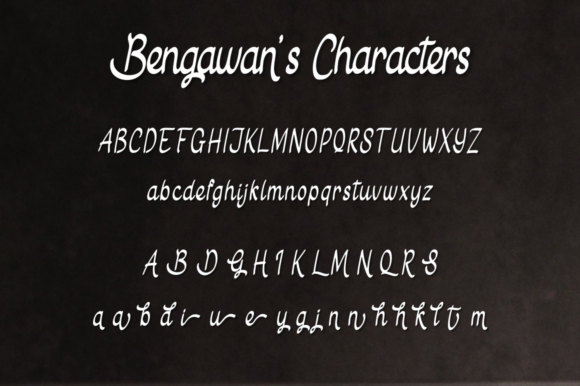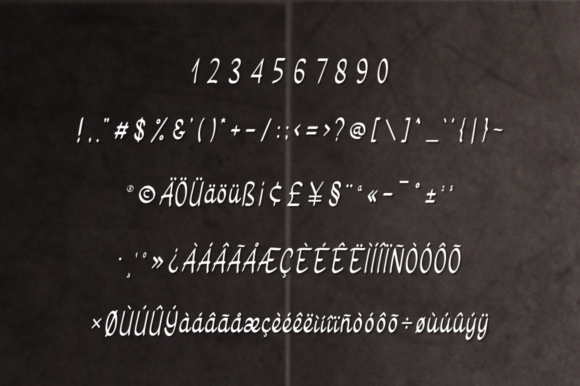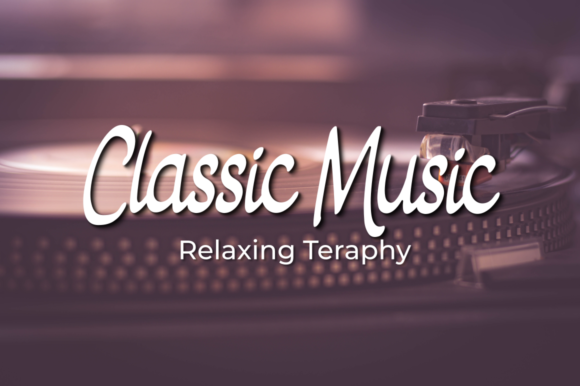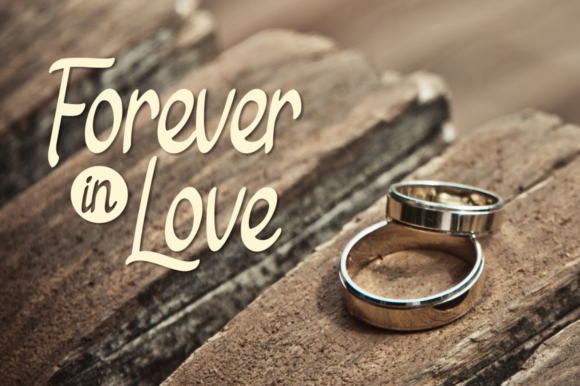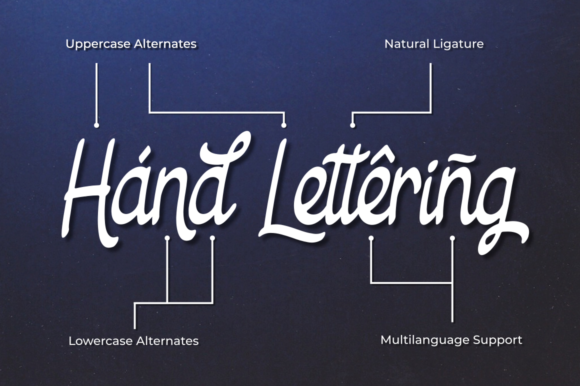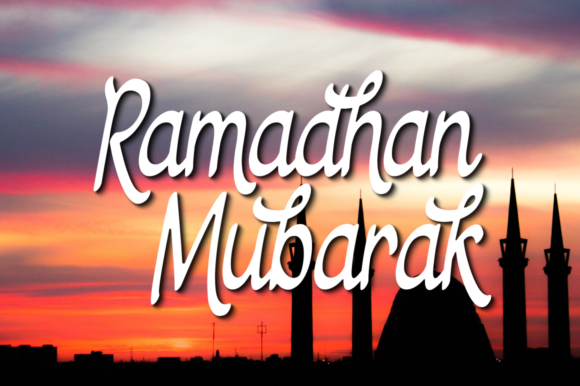
Bengawan Font: Adding a Touch of Authenticity to Your Creative Projects
Are you tired of using the same old fonts in your creative projects? Do you want to add a touch of uniqueness and authenticity to your designs? Look no further than Bengawan Font, a fun and bold handwritten font that’s sure to turn heads. In this article, we’ll take a closer look at Bengawan Font, its features, and how it can elevate your designs to the next level.
What is Bengawan Font?
Bengawan Font is a modern, handwritten font that’s designed to add a touch of personality to your creative projects. With its unique feel and bold style, it’s perfect for designers, crafters, and artists who want to make a statement. Whether you’re working on a logo, brochure, or social media graphics, Bengawan Font is sure to grab attention and leave a lasting impression.
Key Features of Bengawan Font
So, what makes Bengawan Font so special? Here are some of its key features:
- Unique feel: Bengawan Font has a distinct, hand-crafted feel that’s full of character and personality.
- Bold style: With its bold lines and vibrant style, Bengawan Font is perfect for making a statement.
- Authenticity: Bengawan Font is designed to evoke a sense of authenticity and originality, making it perfect for designers and crafters who want to stand out from the crowd.
- Versatility: Bengawan Font can be used in a variety of creative projects, from logos and branding to social media graphics and more.
How to Use Bengawan Font in Your Designs
So, how can you use Bengawan Font in your designs? Here are a few ideas to get you started:
- Logos and branding: Use Bengawan Font to create a unique and memorable logo that reflects your brand’s personality.
- Social media graphics: Add a touch of personality to your social media graphics with Bengawan Font.
- Brochures and flyers: Use Bengawan Font to create eye-catching brochures and flyers that grab attention.
- Invitations and cards: Add a touch of elegance and sophistication to your invitations and cards with Bengawan Font.
Benefits of Using Bengawan Font
So, why should you choose Bengawan Font for your creative projects? Here are just a few benefits:
- Stand out from the crowd: With Bengawan Font, you can create designs that stand out from the crowd and grab attention.
- Add personality to your designs: Bengawan Font is designed to add a touch of personality and authenticity to your designs.
- Versatile: Bengawan Font can be used in a variety of creative projects, making it a great addition to your font library.
Tips for Getting the Most Out of Bengawan Font
Here are a few tips for getting the most out of Bengawan Font:
- Experiment with different colors: Bengawan Font looks great in a variety of colors, so don’t be afraid to experiment and find the perfect color scheme for your design.
- Pair with other fonts: Bengawan Font can be paired with other fonts to create a unique and interesting design.
- Use it sparingly: While Bengawan Font is bold and eye-catching, it can be overwhelming if used too much. Use it sparingly to create a lasting impression.
| Font Name | Bengawan Font |
| Author | Panrita Studio |
In conclusion, Bengawan Font is a fun and bold handwritten font that’s perfect for designers and crafters who want to add a touch of authenticity and personality to their creative projects. With its unique feel, bold style, and versatility, Bengawan Font is sure to turn heads and leave a lasting impression. Whether you’re working on a logo, brochure, or social media graphics, Bengawan Font is a great choice for any creative project.